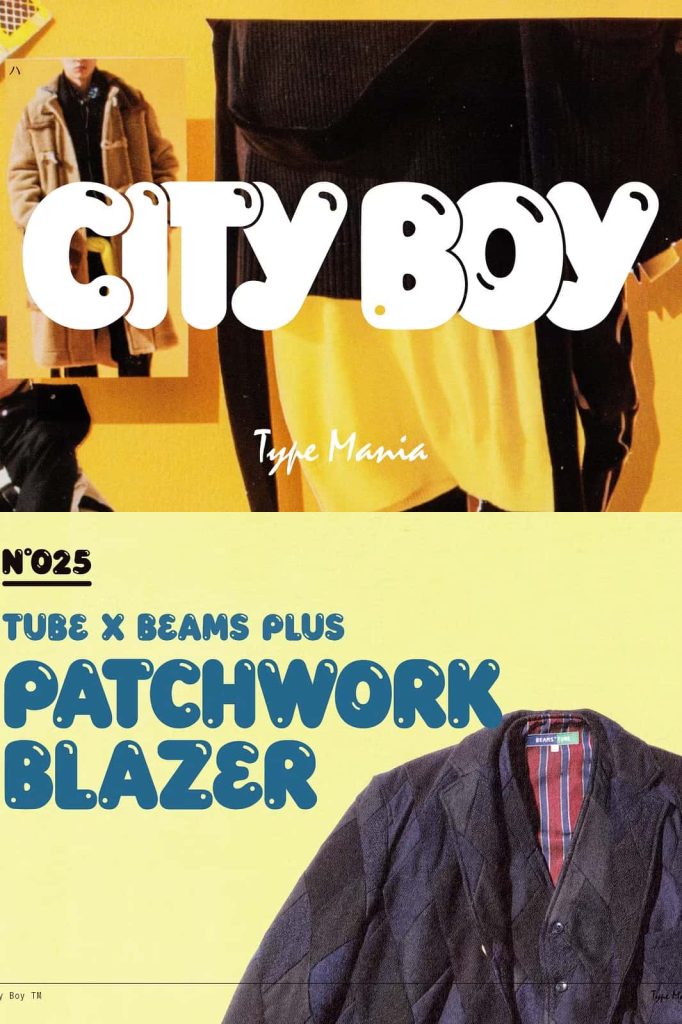
City Boy TM – Bubbly Display FontleastedMay 4, 2025Fonts Introducing City Boy TM. Inspired by the playful typography of Japanese fashion magazines Download